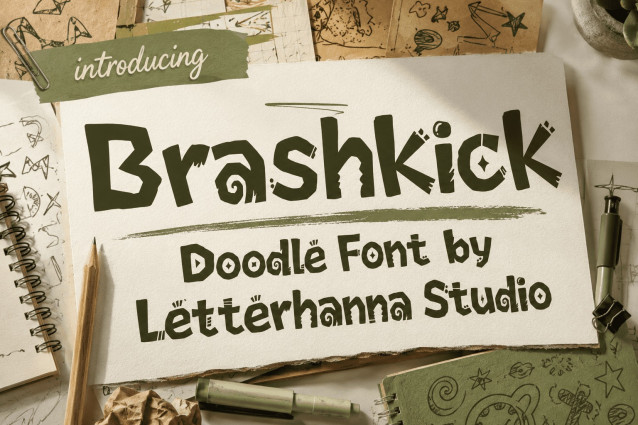
Brashkick Doodle Font
Brashkick is an expressive Doodle Font created for designers who want typography with attitude. Its bold, irregular letterforms combine rough geometry, hand-drawn imperfections, quirky details, and unexpected shapes to create a typeface that immediately grabs attention. It doesn’t look like it came from a perfectly measured grid.